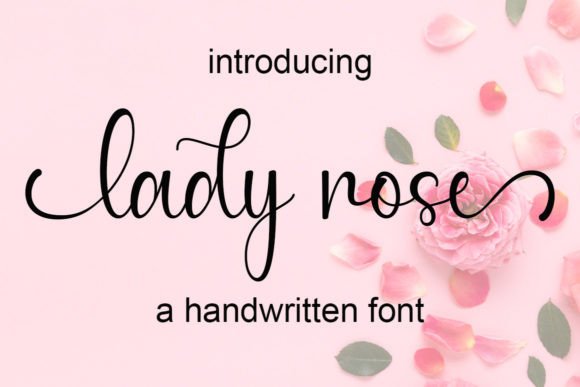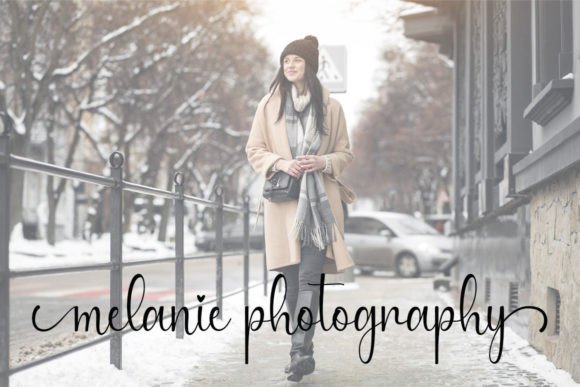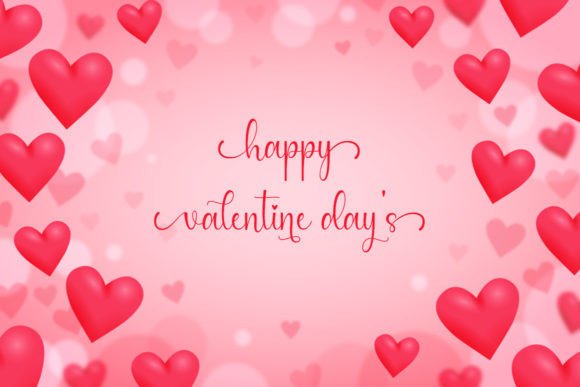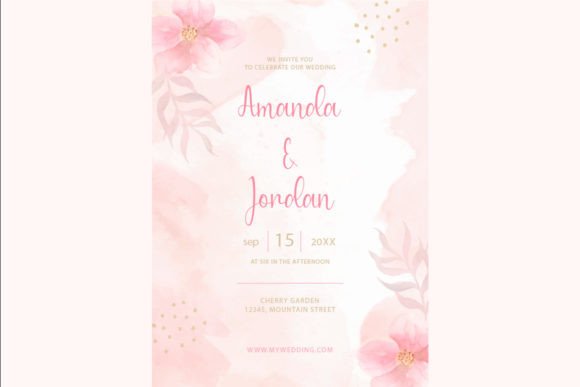
Lady Rose Font
About the Lady Rose Font
Explore the possibilities with Lady Rose Font, a font that offers both beauty and functionality. Lady Rose is an enchanting handwritten font perfect for logos, branding, quotes, clothing, tote bags, business cards, websites, and many more. Fall in love with it, and let it take your projects to the highest level! This font is PUA encoded which means you can access all the glyphs and ligatures with ease!
Lady Rose’s elegant, yet slightly informal, handwritten style is ideal for headlines, short quotes, and branding projects requiring a touch of feminine charm. It works particularly well on packaging for beauty products, stationery, or boutique-style businesses. Avoid using it for large blocks of body text or UI elements; its legibility suffers at smaller sizes.
Pairing Lady Rose with a clean sans-serif like Montserrat or a classic serif like Garamond provides a sophisticated contrast. For a more playful feel, consider pairing it with a rounded sans-serif such as Lato. These pairings balance the script’s handwritten charm with improved readability in supporting text.
The font projects a personality best described as sophisticated and friendly, making it suitable for brands aiming for a luxurious yet approachable image.